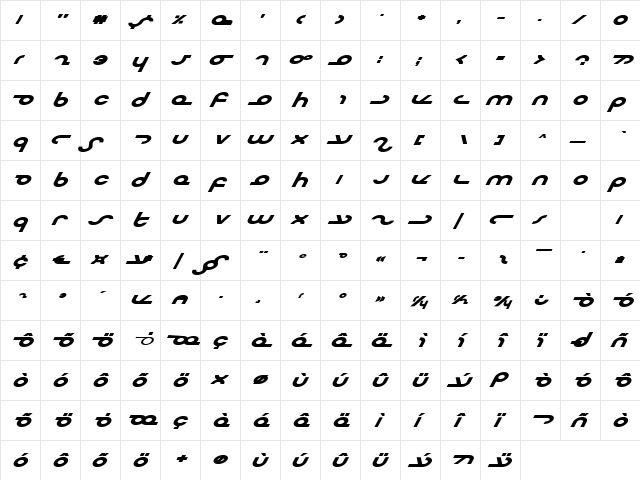
Masterdom Exp Bold Italic Font Preview
Design Context for Masterdom Exp Bold Italic Typeface
Masterdom Exp Bold Italic is a composed and adaptable typeface that performs quietly and consistently across a wide range of design contexts. The slanted form adds forward momentum and visual energy. The heavy weight commands attention and anchors typographic hierarchies.